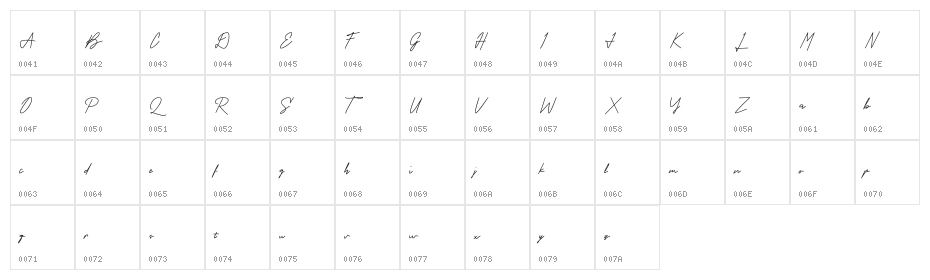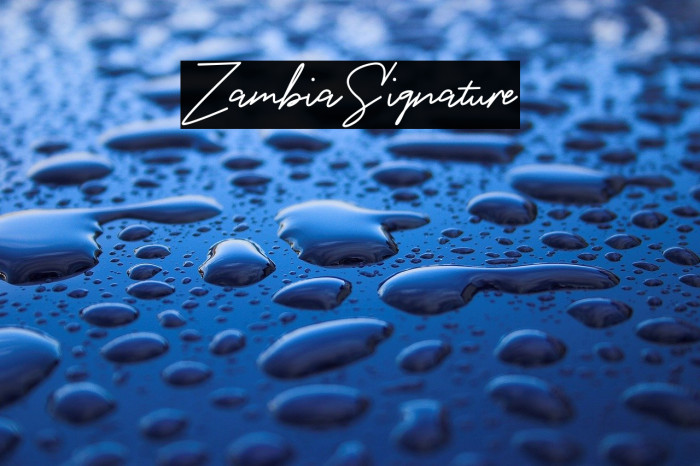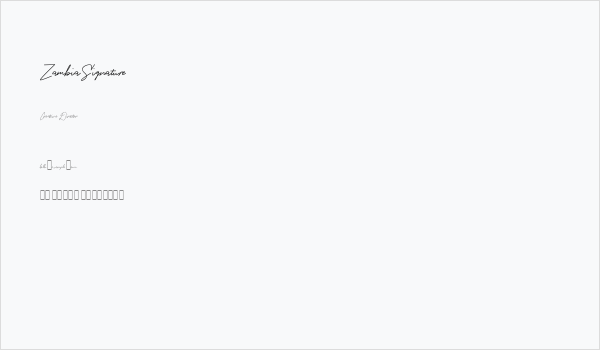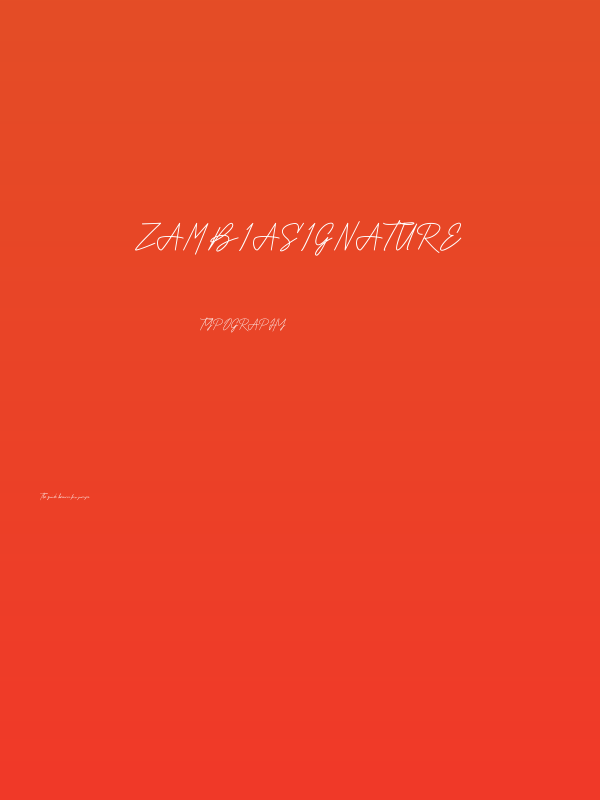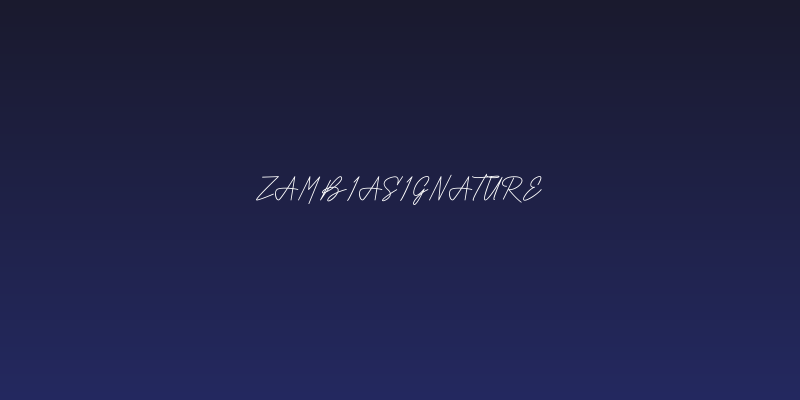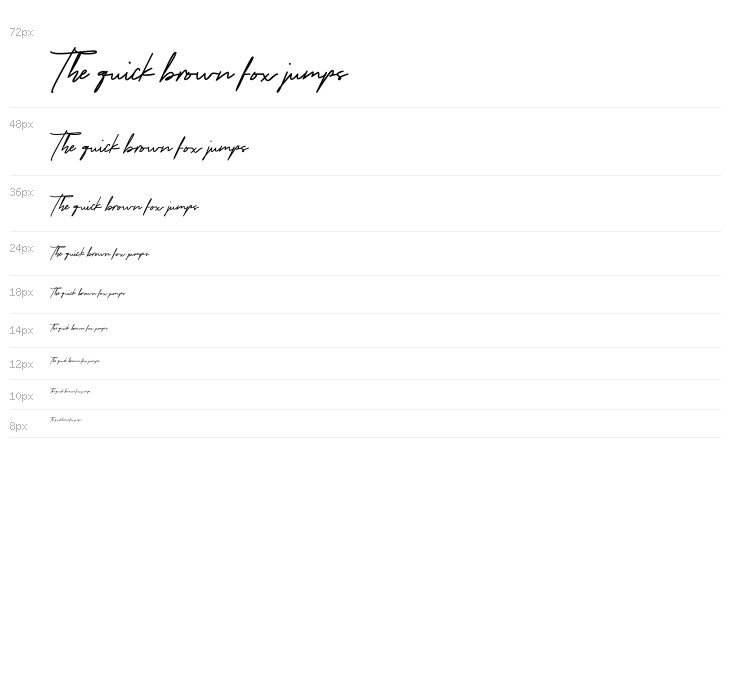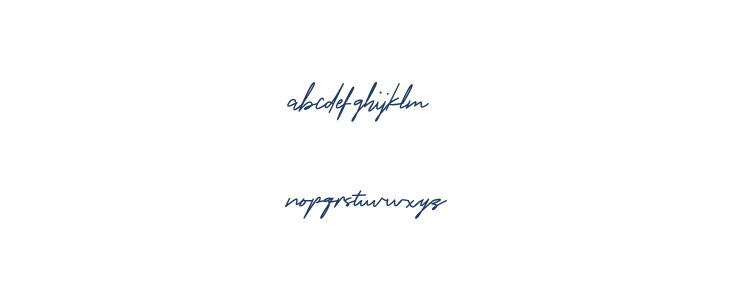
ZambiaSignature Font
ZambiaSignature Description
This font features an elegant and flowing script style that mimics the fluidity of a handwritten signature. The uppercase letters are tall and slightly slanted, with graceful curves and loops that give a sense of sophistication and personal touch. The lowercase letters maintain a consistent style, with smooth connections between characters, enhancing the cursive appearance. The numerals are designed to match the overall aesthetic, with a similar slant and fluidity. Special characters like the ampersand and dollar sign are intricately crafted, adding to the font's decorative appeal. This font is ideal for projects that require a personal or luxurious touch, such as invitations, branding, or logo design.
| Proposed Projects | Ideal for invitations, branding, logo design, and any project requiring a personal or luxurious touch. |